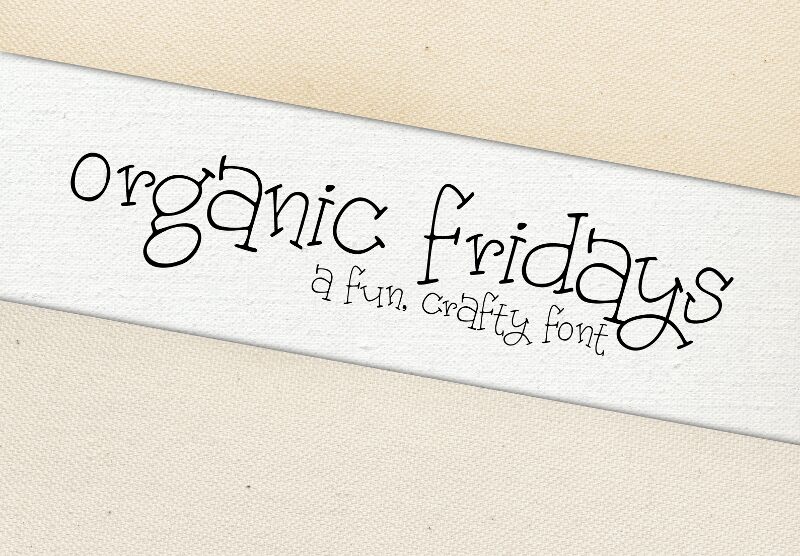
Organic Fridays Heart Alternates by Brittney Murphy is a free Valentine's Day display font with lanky, hand-drawn letters and heart-shaped cutouts. The alphabet mixes wiry lines with broad black forms and deliberately uneven heights. The little hearts provide a clear recurring motif.
It can turn a greeting-card title into part lettering and part love-themed illustration. The playful irregularity also fits party invitations, sweet-shop packaging, and cheerful social graphics. Greeting cards remain its strongest use, since the heart details communicate the occasion at a glance.